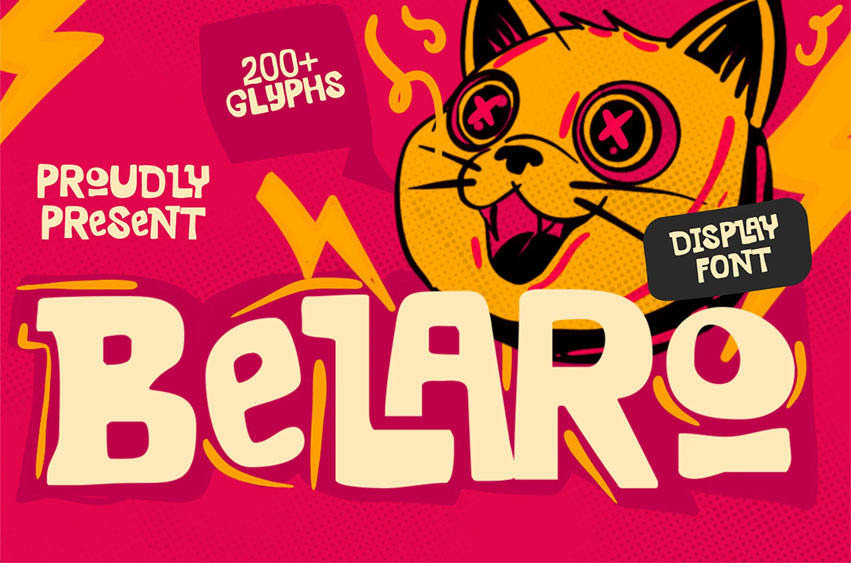
Belaro Font
Belaro Font is a bold and playful display font designed to bring fun, energy, and personality into your designs. Inspired by street food culture, coffee shops, festival posters, and cartoon-style typography, this font delivers strong visual impact with a friendly and expressive look.
Whether you’re creating food packaging, café branding, event posters, or social media visuals, Belaro helps your message stand out with bold charm and creative flair.
• Food & beverage branding
• Coffee shop & café menus
• Posters & flyers
• Packaging design
• Festival & event visuals
• Social media graphics
• Kids & cartoon projects
• Bold headlines & titles